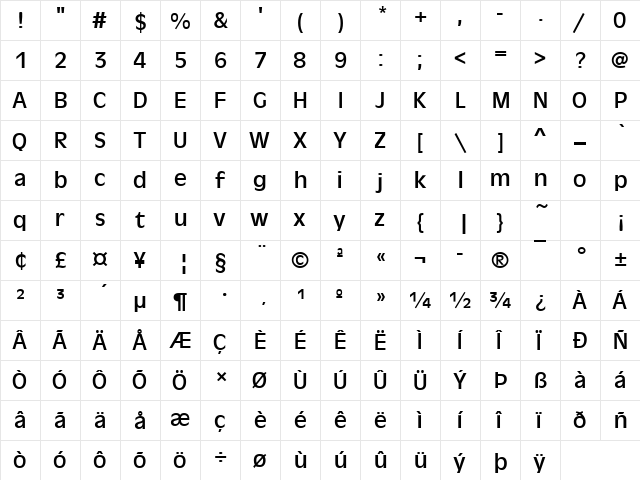
Antigoni Regular
Design Context for Antigoni Typeface
Antigoni offers clean, dependable letterforms without strong stylistic allegiance, making it a practical choice for designers who need flexibility.
Pro Tip: Pair Antigoni with a font of contrasting weight or personality to build a more expressive typographic hierarchy.